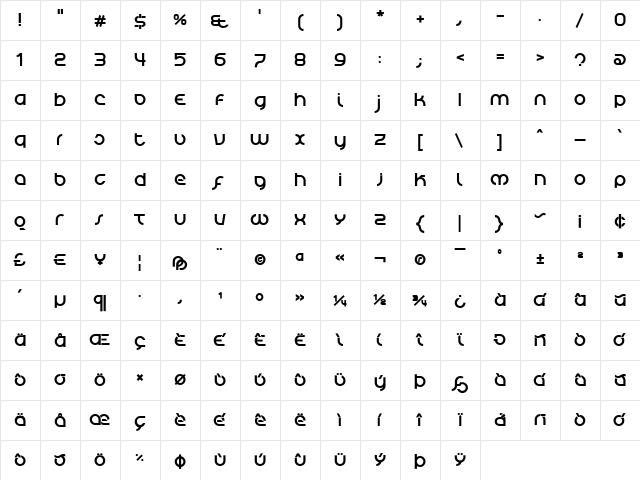
Tierra Negra Regular
Design Context for Tierra Negra Typeface
Tierra Negra offers clean, dependable letterforms without strong stylistic allegiance, making it a practical choice for designers who need flexibility.
Pro Tip: Use Tierra Negra in both headline and body roles to test its range before committing to a single application.